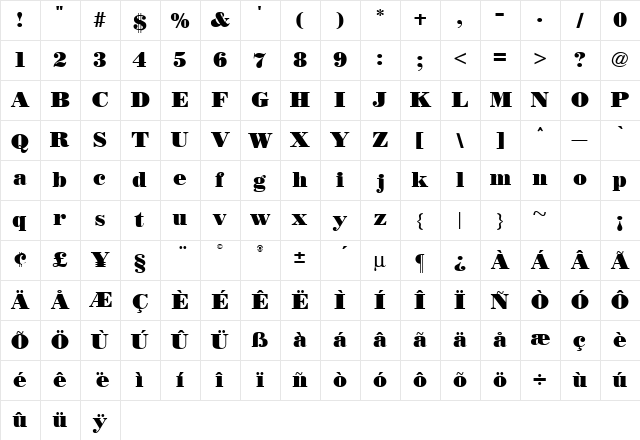
Bodidly Regular
Design Context for Bodidly Typeface
Bodidly takes a measured approach to typography — its balanced proportions and neutral character make it a reliable workhorse for both digital and print work.